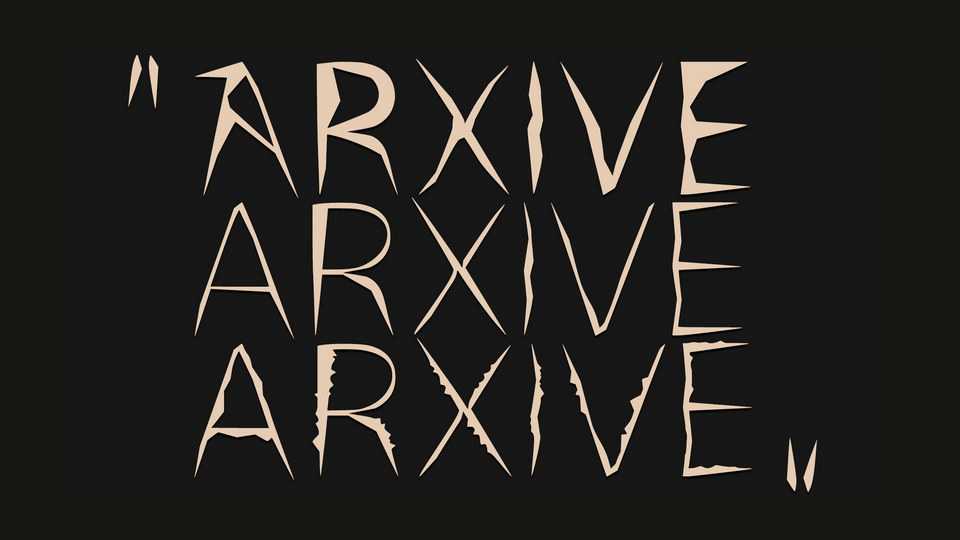
Download Arxi font, a bold, rough and sharp hand lettered typeface. With three unique styles, Arxi is great for posters, album artworks, street art designs.
Designer: Cauã Martinelli